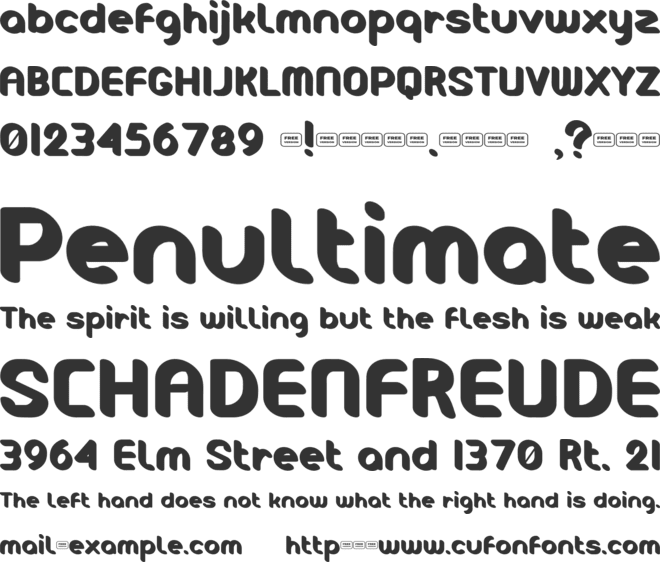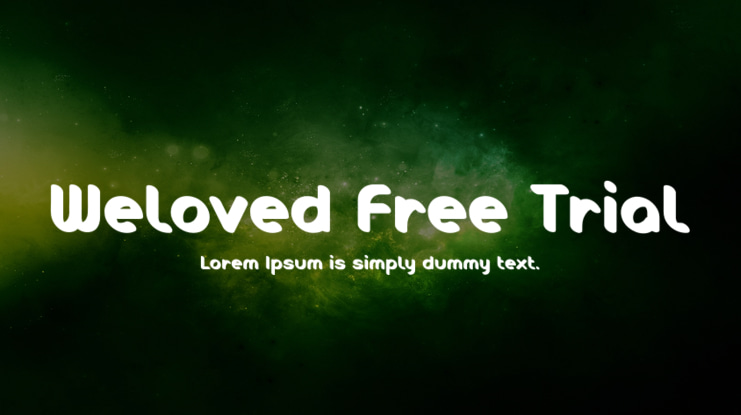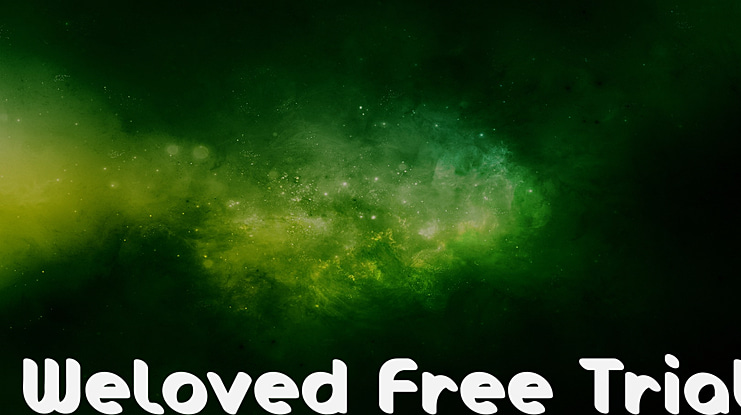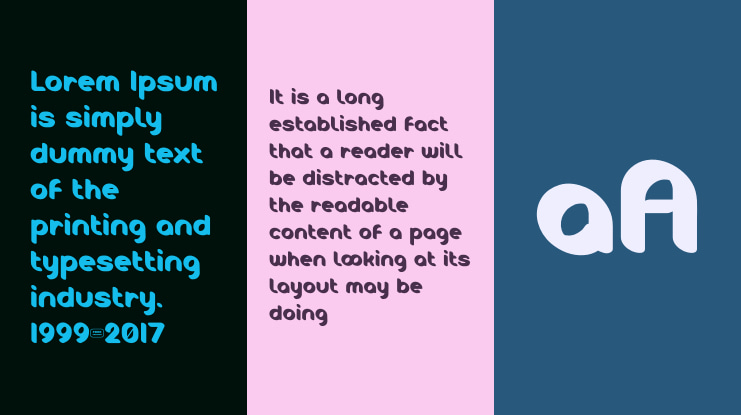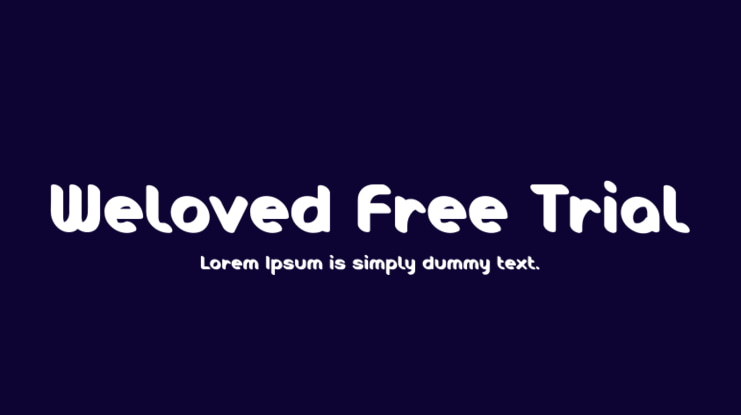
Weloved Free Trial Font
Weloved is a bold and lovely display font with a romantic theme.
Simple and easy to use, this font will be very beautiful if you mix it with your various craft designs.